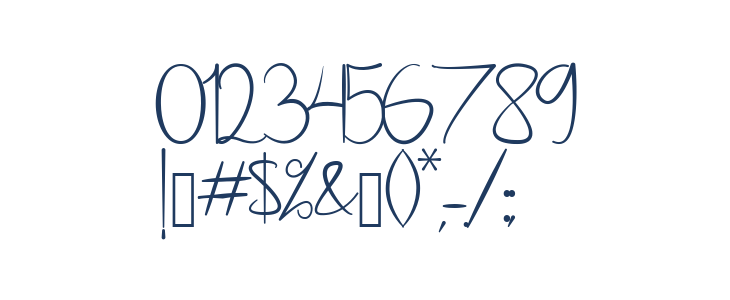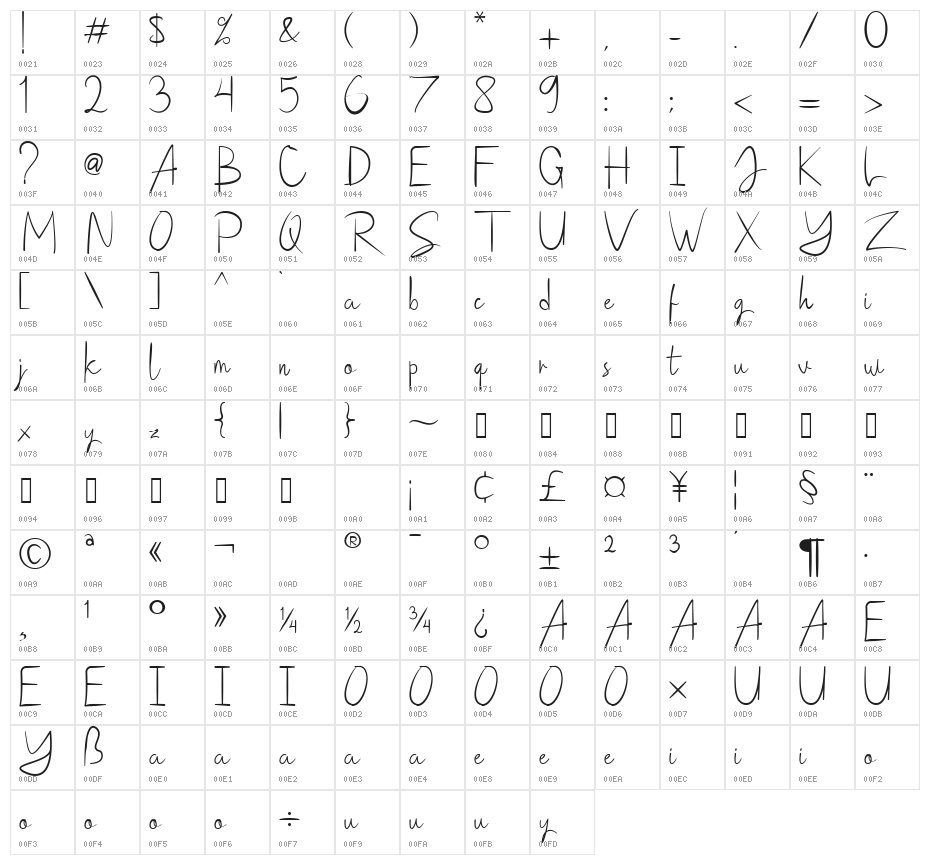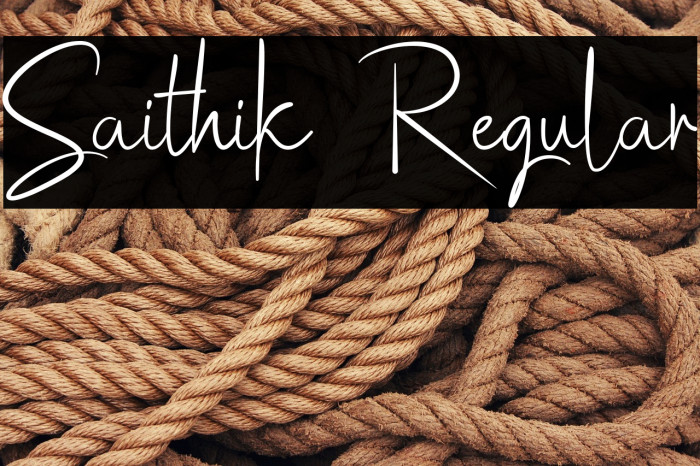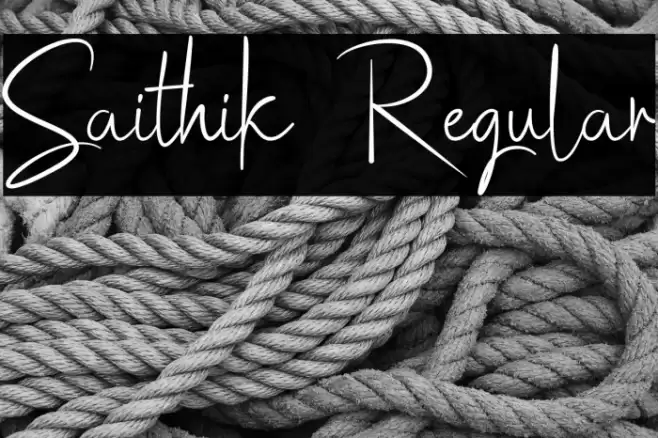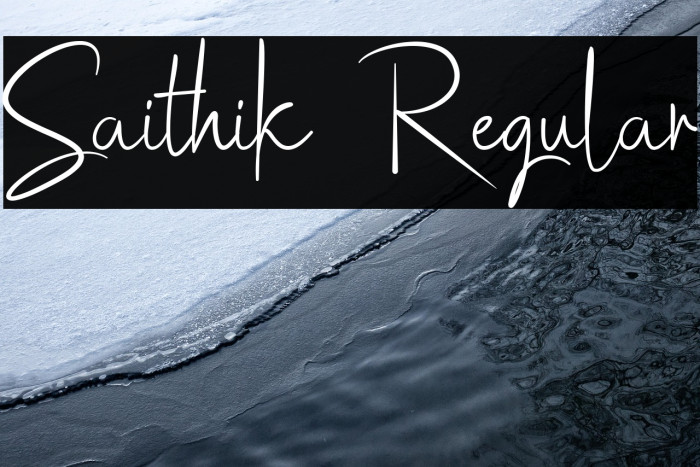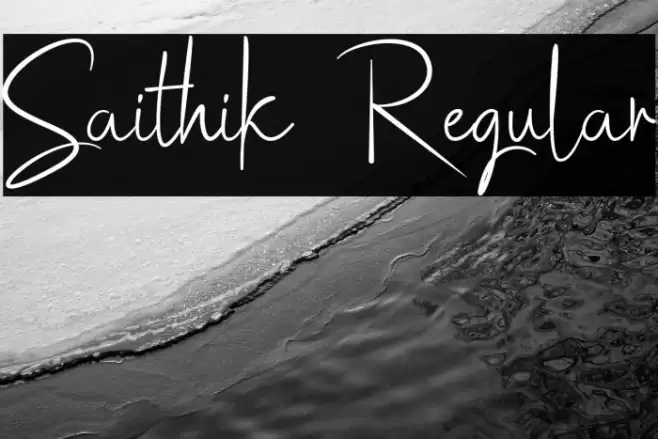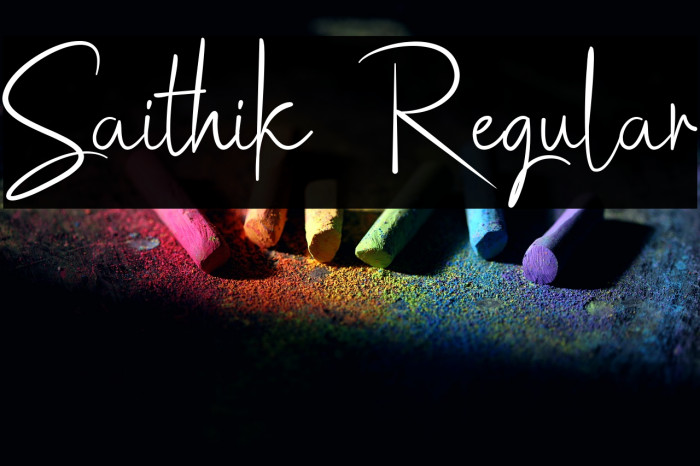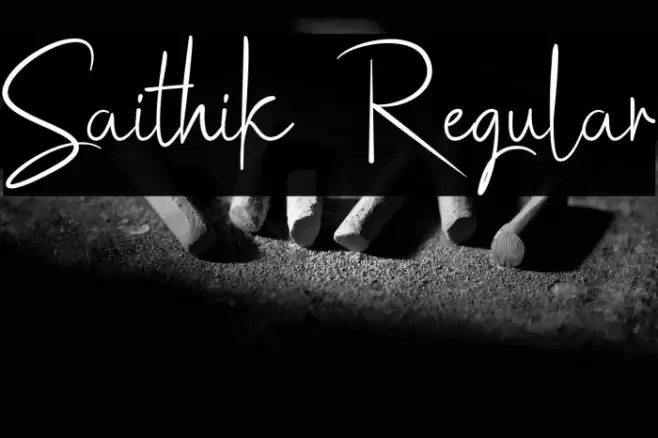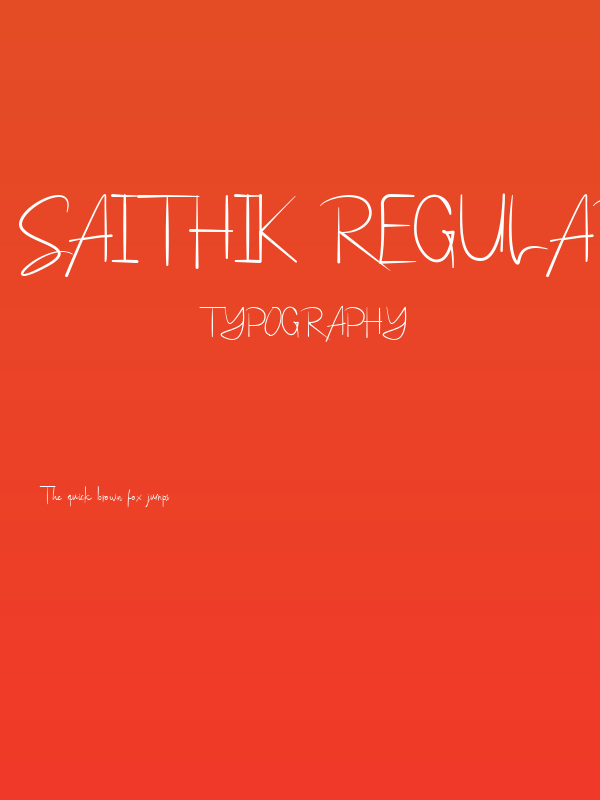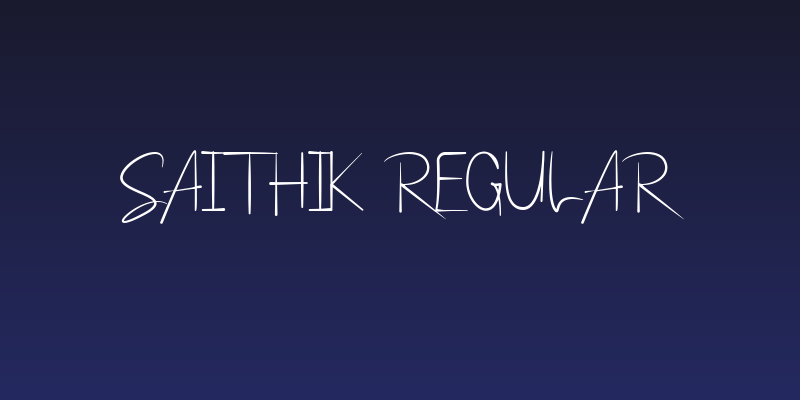
Saithik Regular Font
Saithik Regular Description
This font features a playful and dynamic handwritten style, characterized by its elongated and slightly irregular letterforms. The uppercase letters exhibit a whimsical flair with varying stroke widths, while the lowercase letters maintain a consistent flow, enhancing the font's casual and approachable appearance. The numerals and special characters are crafted with the same lively energy, making them stand out with their unique curves and angles. This font's overall aesthetic is both modern and artistic, suitable for projects that require a personal touch.
| Use Case | Logos, Invitations, Creative projects |
| Proposed Projects | Ideal for greeting cards, invitations, personal branding, and creative projects that require a touch of whimsy and individuality. |